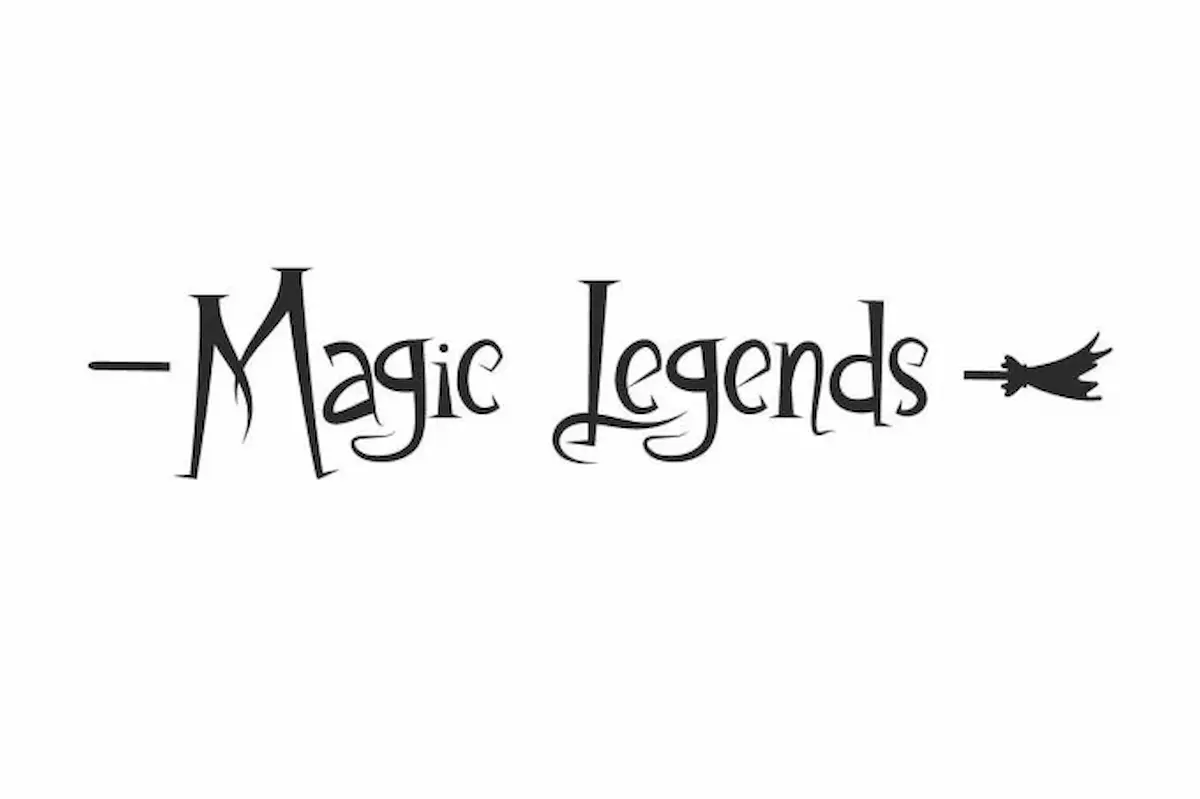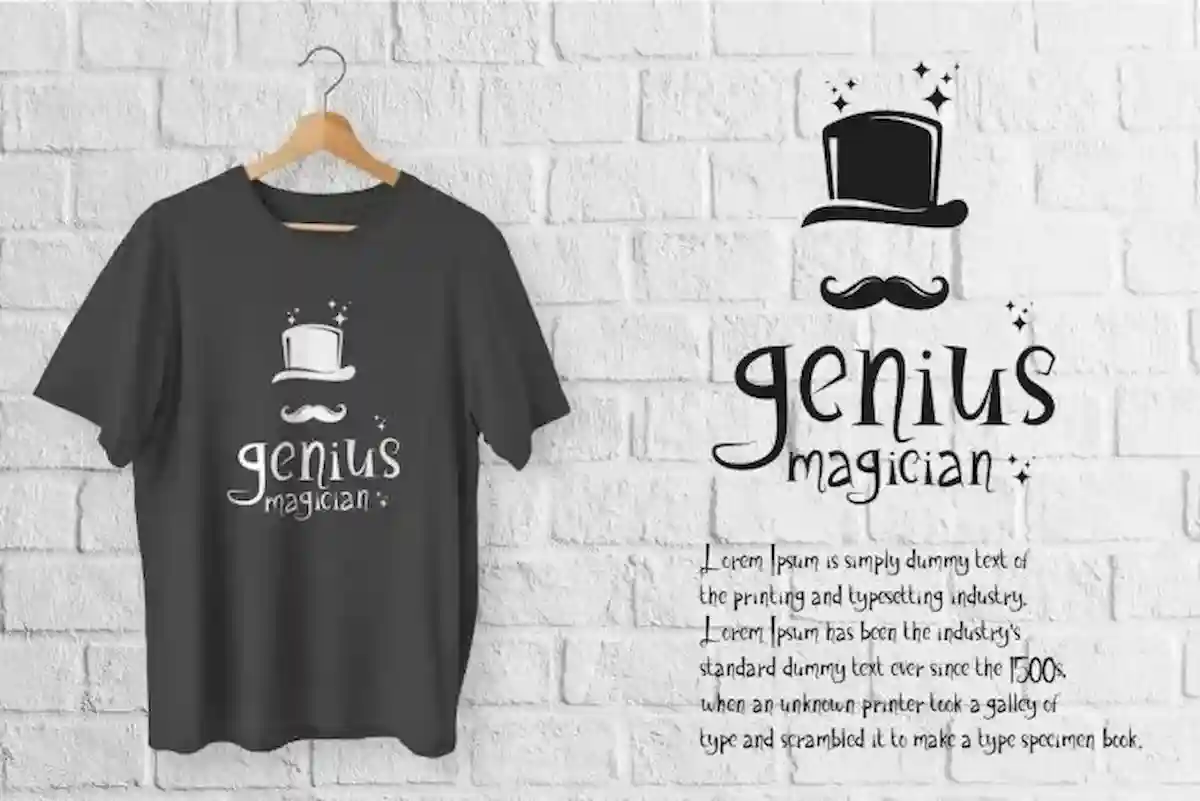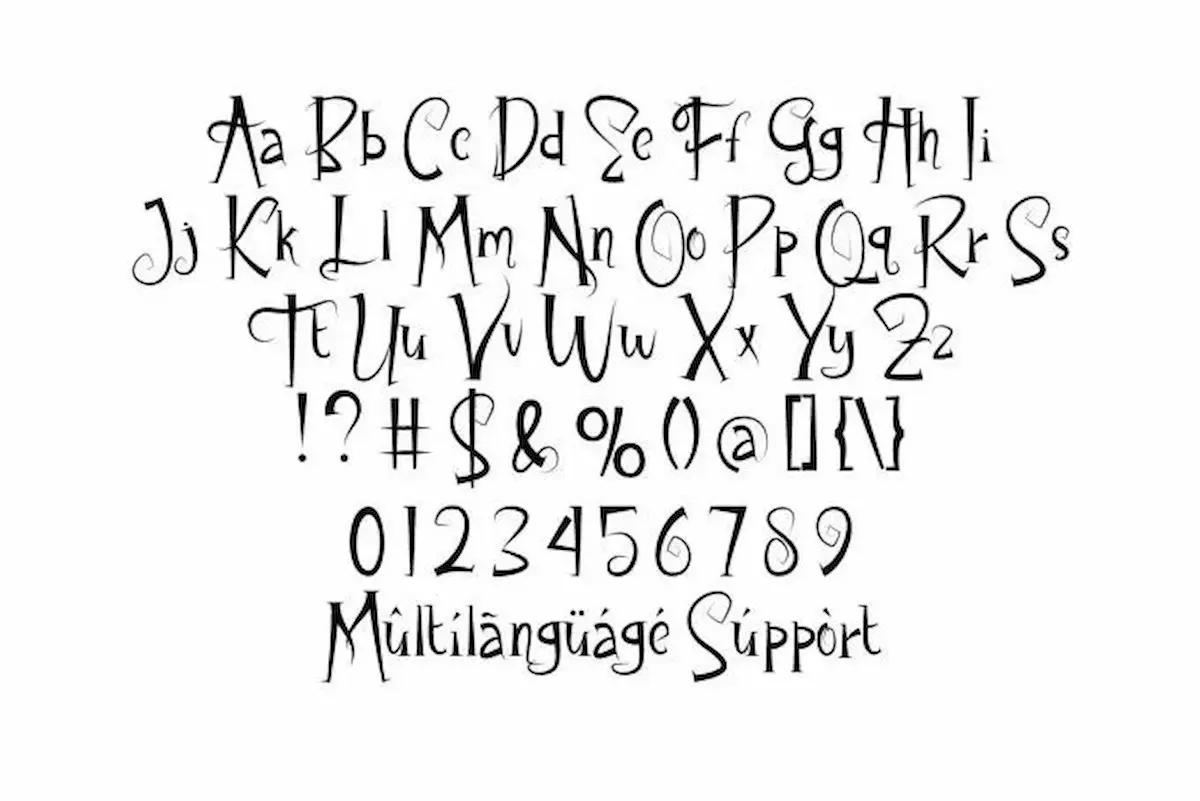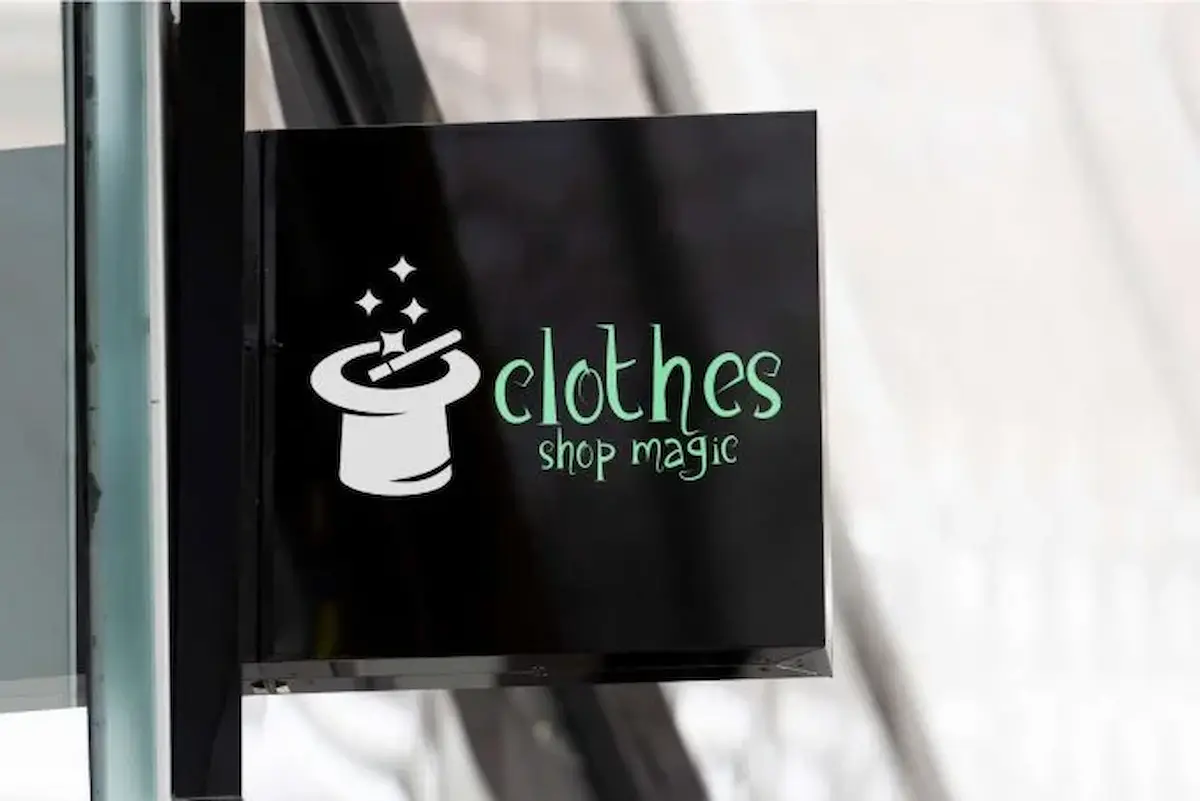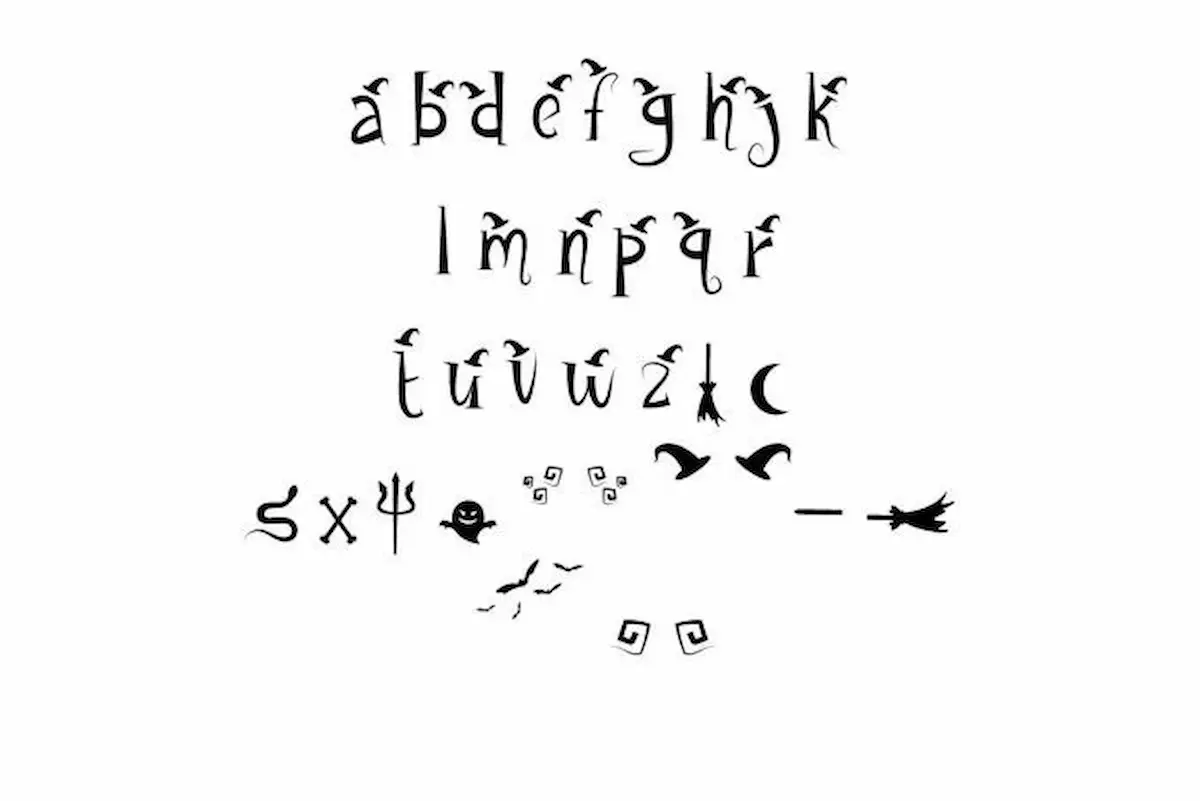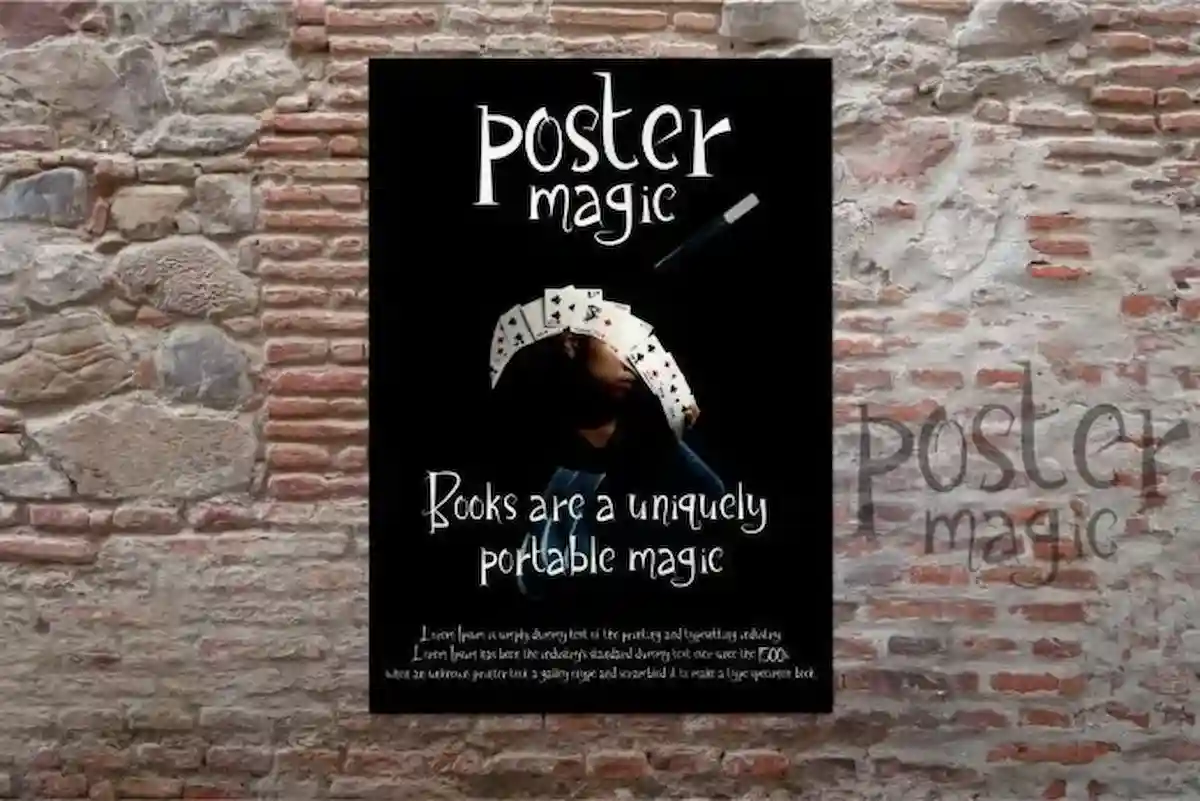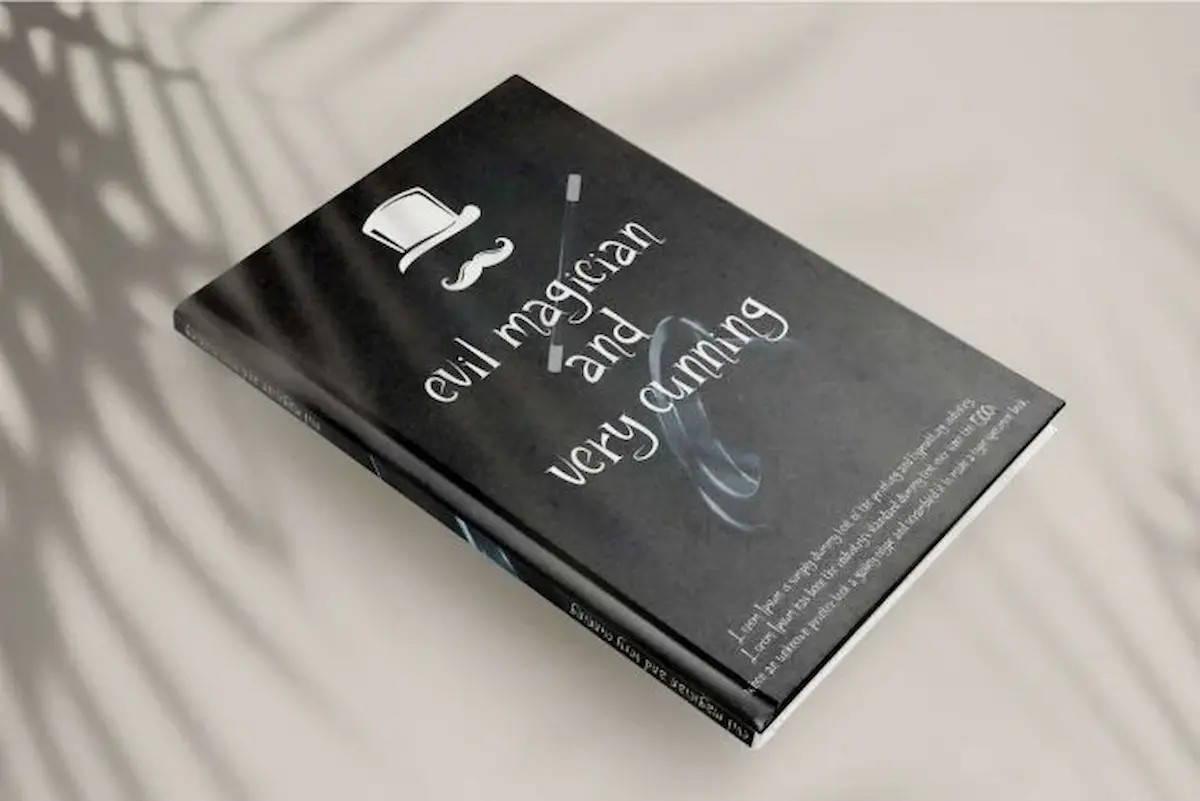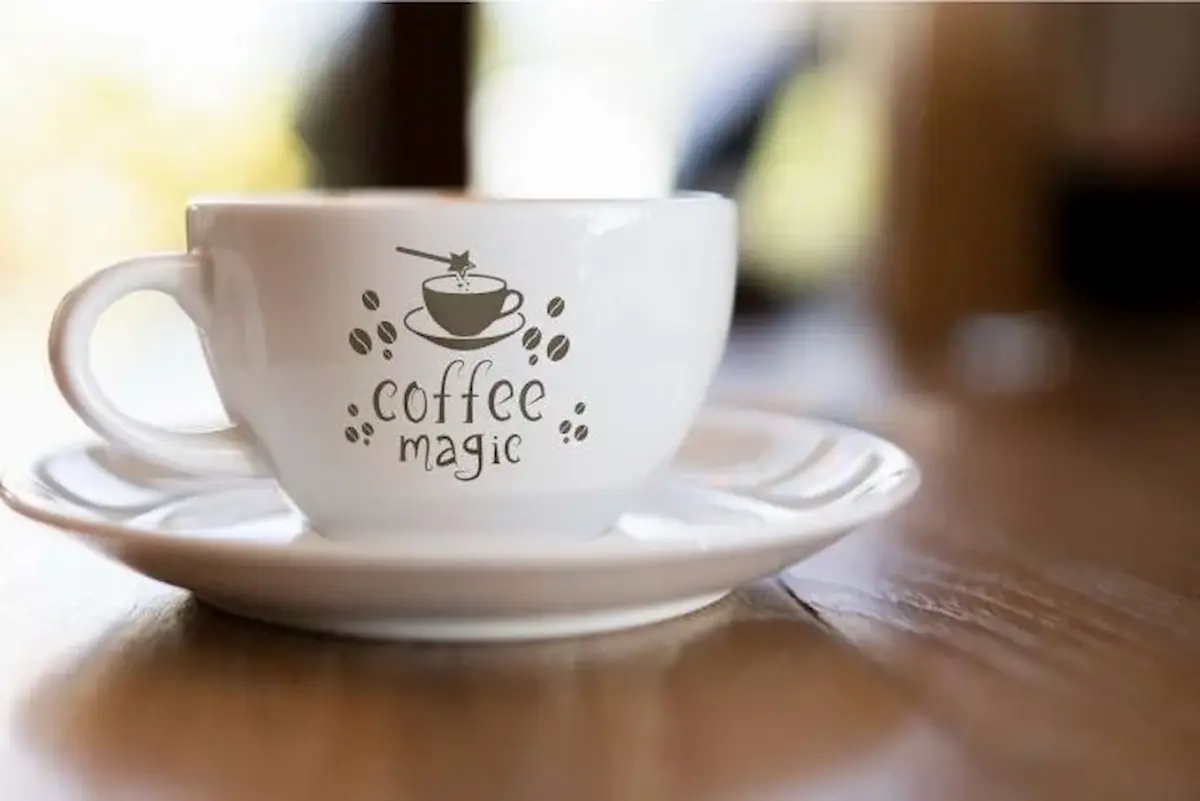
Magic Legends Font
Magic Legends Font is a cute display font inspired by funny magic things and witch but still modern and trendy. It’s perfect for comic, book, café, Halloween, label, movie, poster, signage, and more!
Magic Legends Font is a unique display font specially made for magic show or Halloween event inspired by magicians and witch but still trendy that can be adapted to modern things too. This font suitable for badge, café, game, headline, label, magician, making logo, movie, packaging, product design, poster, signage, special event or celebration, stationery, t-shirt design, title, and typography.
Magic Legends Font comes with uppercase and lowercase letters, number, punctuation, symbol, alternative lowercase and uppercase, unique swoosh, also multilingual supports.To access the alternate glyphs, you need a program that supports OpenType features such as Adobe Illustrator CS and Adobe InDesign.